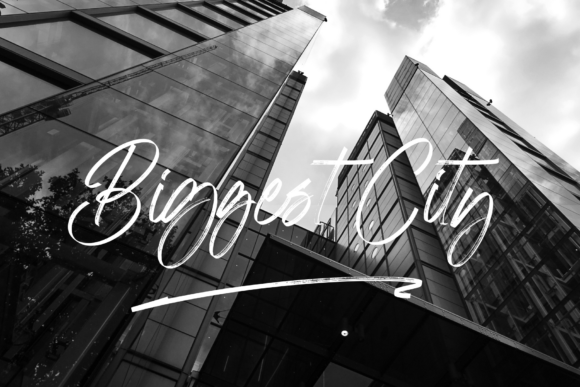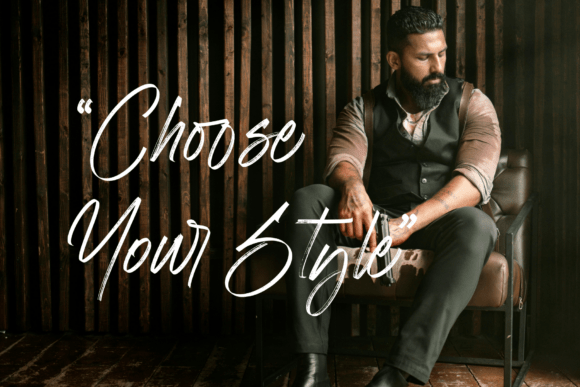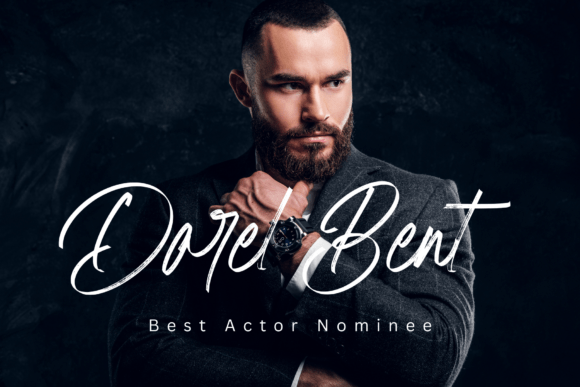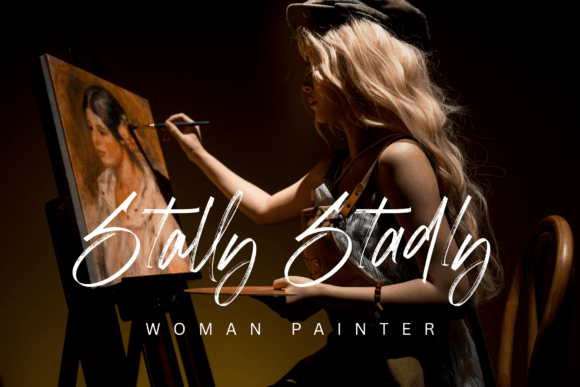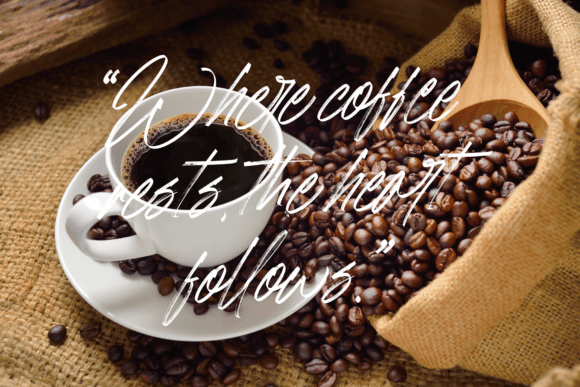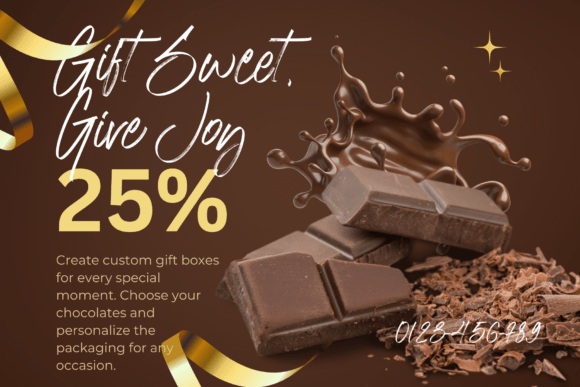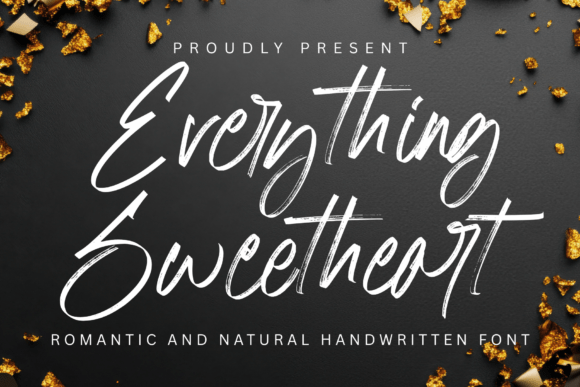
Introducing Everything Sweetheart Font: The Ultimate Romantic Handwritten Script
Are you looking for a font that exudes warmth, elegance, and a touch of romance? Look no further than Everything Sweetheart Font, a beautiful handwritten script font that is perfect for designers and crafters seeking to add a personal and heartfelt touch to their creative projects.
What is Everything Sweetheart Font?
Everything Sweetheart is a romantic and natural handwritten script font that boasts an elegant brush texture. Designed to feel warm, expressive, and personal, this font is ideal for a wide range of creative applications, from wedding designs and love quotes to branding, invitations, greeting cards, social media posts, and aesthetic Canva projects.
Key Features of Everything Sweetheart Font
- Romantic and Natural Handwritten Script: Everything Sweetheart Font features a beautiful, handwritten script that is both romantic and natural, making it perfect for projects that require a personal touch.
- Elegant Brush Texture: The font’s elegant brush texture adds a touch of sophistication and elegance to any design, making it ideal for high-end projects.
- Flowing Strokes and Organic Character: The font’s flowing strokes and organic character bring a sweet and heartfelt touch to any creative work, making it perfect for projects that require a personal and emotional connection.
- Perfect for Wedding Designs and Love Quotes: Everything Sweetheart Font is specifically designed for wedding designs, love quotes, and other romantic projects, making it a must-have for designers and crafters working in these niches.
Use Cases for Everything Sweetheart Font
Everything Sweetheart Font is a versatile font that can be used in a wide range of creative projects, including:
- Wedding Designs: Use Everything Sweetheart Font to create beautiful wedding invitations, programs, and decorations that exude romance and elegance.
- Love Quotes and Social Media Posts: Add a touch of romance and personality to your love quotes and social media posts with Everything Sweetheart Font.
- Branding and Packaging: Use Everything Sweetheart Font to create beautiful and elegant branding and packaging designs that stand out from the crowd.
- Invitations and Greeting Cards: Create personalized and heartfelt invitations and greeting cards with Everything Sweetheart Font.
- Aesthetic Canva Projects: Use Everything Sweetheart Font to add a touch of elegance and sophistication to your Canva projects.
Why Choose Everything Sweetheart Font?
There are many reasons why designers and crafters should choose Everything Sweetheart Font for their creative projects. Here are just a few:
- Unique and Personalized: Everything Sweetheart Font is a unique and personalized font that adds a touch of warmth and elegance to any design.
- Elegant and Sophisticated: The font’s elegant brush texture and flowing strokes make it perfect for high-end projects that require a touch of sophistication.
- Easy to Read and Use: Everything Sweetheart Font is easy to read and use, making it perfect for designers and crafters of all skill levels.
- Versatile: The font can be used in a wide range of creative projects, from wedding designs to social media posts.
Everything Sweetheart Font is a beautiful and elegant handwritten script font that is perfect for designers and crafters seeking to add a personal and heartfelt touch to their creative projects. With its flowing strokes, organic character, and elegant brush texture, this font is ideal for wedding designs, love quotes, branding, invitations, greeting cards, social media posts, and aesthetic Canva projects. Whether you’re a professional designer or a crafty DIY enthusiast, Everything Sweetheart Font is a must-have font that will take your creative projects to the next level.